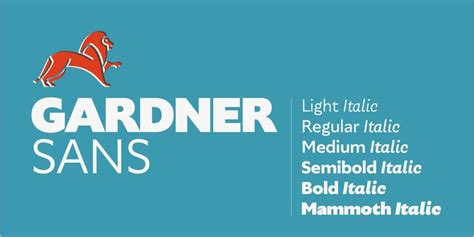
Hey guys! Let’s dive into the awesome world of typography and talk about a font that’s been making waves: Gardner Sans . If you’re on the hunt for a versatile, modern, and absolutely free font family to elevate your designs, you’ve come to the right place. We’re going to explore what makes Gardner Sans so special, how you can snag it for your creative toolkit, and why it’s a game-changer for designers, bloggers, and anyone who loves a good typeface.
What is Gardner Sans Font?
So, what exactly is Gardner Sans ? Think of it as your go-to sans-serif font for that clean, contemporary look. It’s designed with a geometric structure, meaning it’s built on simple shapes like circles and straight lines, which gives it a super balanced and readable feel. This kind of design makes it incredibly versatile. Whether you’re crafting a sleek website, designing a crisp brochure, laying out a professional report, or even just whipping up a social media graphic, Gardner Sans has got your back. Its clean lines and open counters (that’s the fancy term for the enclosed or partially enclosed negative space in a letter, like in an ‘o’ or ‘p’) ensure legibility even at smaller sizes. This is a massive win for user experience, especially online where readability is king. The designers behind Gardner Sans really focused on creating a typeface that feels both modern and timeless, avoiding overly trendy quirks that might date it quickly. It’s the kind of font that speaks professionalism without sounding stuffy, and approachability without being too casual. This delicate balance is what makes it a favorite among many designers looking for a reliable workhorse font.
One of the standout features of the Gardner Sans font family is its extensive range of weights. We’re not just talking about regular and bold here, guys. We’re talking a whole spectrum! You’ll often find weights ranging from an ultra-light, almost ethereal hairline, all the way up to a super-heavy, commanding black. This incredible variety allows for sophisticated typographic hierarchy. Imagine using the ultra-light for subtle subheadings, the regular for body text, and the bold or black for impactful headlines. This allows you to create a dynamic and engaging visual flow in your designs without needing to switch to a completely different font. This consistent character across different weights also means that your brand’s voice remains cohesive, no matter the application. It’s like having a whole symphony orchestra of type at your fingertips, each instrument playing its part perfectly to create a harmonious whole. The geometric underpinnings mean that even the heavier weights retain a certain clarity and don’t become muddy or illegible. It’s a testament to smart design and careful execution. Plus, the open nature of the letterforms contributes to excellent readability, making it a fantastic choice for longer blocks of text as well as short, punchy statements. It’s a font that works hard for you, adapting to almost any design challenge you throw at it. Its neutral yet friendly character makes it suitable for a wide range of industries, from tech and finance to lifestyle and creative agencies. It’s the kind of font that doesn’t scream for attention but quietly commands respect through its excellent craftsmanship and usability.
Why Choose Gardner Sans?
Beyond its affordability, Gardner Sans excels in versatility and readability. As we touched upon, its clean, geometric construction makes it exceptionally legible. This is crucial for everything from website body copy and app interfaces to print materials like business cards and flyers. In today’s digital-first world, where users consume information rapidly on various devices and screen sizes, a font that remains clear and easy to read is paramount. Gardner Sans delivers on this front, ensuring your message gets across loud and clear. Furthermore, the comprehensive range of weights and styles within the family allows for sophisticated typographic treatments. You can establish a clear visual hierarchy, guiding the reader’s eye through your content effectively. Use a lighter weight for secondary information, a regular weight for the main text, and a bolder weight for headings or calls to action. This consistent visual language helps create a more engaging and professional user experience. It’s a font that adapts to your needs, whether you need something subtle and understated or bold and attention-grabbing. The geometric sans-serif style is also inherently modern and timeless, meaning your designs will likely stand the test of time, avoiding the pitfalls of overly trendy typefaces that can quickly look dated. It’s a safe bet for projects where longevity and broad appeal are important. The personality of Gardner Sans is friendly and approachable, yet it maintains an air of professionalism, making it suitable for a wide array of applications. It doesn’t impose a strong personality that might clash with your brand’s identity, but rather complements it with its clean and elegant presence.
Exploring the Weights and Styles
Let’s get real for a minute, guys. The sheer variety within the Gardner Sans font family is one of its most compelling aspects. It’s not just about having one or two styles; it’s about having a whole toolkit that allows for nuanced and professional design work. When we talk about weights, we’re referring to the thickness of the strokes in the characters. Gardner Sans typically offers a very broad spectrum. You might find options like: Thin, Extra Light, Light, Regular, Medium, Semi-Bold, Bold, Extra Bold, and Black. This extensive range means you can create dramatic contrasts in your typography. For instance, a minimalist poster design might use the Thin weight for a large, elegant title, while the Regular weight is used for the essential details. Or, consider a website’s navigation bar; you might use the Medium weight for the main links and the Light weight for secondary navigation items. This careful selection of weights helps guide the user’s eye and communicate information hierarchy effectively. It’s the difference between a design that feels haphazard and one that feels intentionally crafted and polished. The subtle differences between adjacent weights (like Light, Regular, and Medium) are often enough to differentiate content without being jarring, maintaining a smooth reading experience.
Beyond the weights, you’ll also find different styles . While Gardner Sans is primarily a sans-serif, some versions might offer italic or oblique versions for certain weights. Italic styles are slanted versions of the regular font, often used for emphasis or to denote specific types of text like quotes or foreign words. These stylistic variations add another layer of expressive potential to the font family. Imagine using an italic version for pull quotes in an article or for emphasizing a specific point in a presentation. This level of detail in the font family demonstrates a commitment to providing designers with comprehensive tools. It’s this attention to detail that elevates Gardner Sans from a simple free font to a truly professional typographic resource. The geometric nature of the font ensures that even the extreme weights maintain their integrity. The Black weight is substantial and commanding, perfect for headlines that need to make a statement, yet it doesn’t become a dense, unreadable block of ink. Conversely, the Thin weight is delicate and airy, ideal for sophisticated branding elements or as a subtle accent. This careful calibration across all weights ensures that the font’s core characteristics – its clarity, balance, and modern feel – are preserved, regardless of how heavy or light the stroke becomes. This consistency is vital for maintaining brand identity and ensuring a cohesive visual experience across all your marketing materials and digital platforms. It allows for a unified voice, even when employing a wide range of typographic expressions. It’s this thoughtful design and extensive character set that make Gardner Sans such a valuable asset for any designer’s arsenal, empowering them to create sophisticated and impactful visuals with ease.
Applications for Gardner Sans
So, where can you actually use Gardner Sans ? Honestly, the possibilities are pretty much endless, which is what makes it such a fantastic free font. Its clean, geometric aesthetic lends itself perfectly to web design and UI/UX . Think modern websites, sleek mobile apps, and interactive dashboards. The readability of Gardner Sans ensures that users can easily consume information, whether it’s product descriptions, articles, or navigation menus. Its various weights allow designers to create clear visual hierarchies, guiding users through the interface intuitively. For instance, you could use a bold weight for main headings, a regular weight for body text, and a light weight for secondary information or captions. This structured approach enhances user experience and makes your digital products feel more polished and professional. It’s the kind of font that helps make technology feel approachable and user-friendly.
Beyond the digital realm, Gardner Sans is also a stellar choice for branding and identity . Whether you’re a startup looking to establish a clean, modern logo, or an established company refreshing its brand guidelines, Gardner Sans can provide a solid typographic foundation. Its versatility means it can work across various brand personalities – from minimalist and sophisticated to friendly and accessible. Imagine using it for your company’s stationery, business cards, brochures, and marketing collateral. The consistent look and feel across different touchpoints will reinforce your brand’s identity and make it more memorable. It’s a font that doesn’t overpower your brand but rather supports and enhances it, projecting an image of professionalism and reliability. Its ability to be scaled from tiny favicons to large billboards without losing its character is a significant advantage in branding.
Furthermore, Gardner Sans shines in print design . Need to create eye-catching posters, flyers, magazines, or reports? Gardner Sans has you covered. Its excellent legibility makes it suitable for long-form text in publications, while its bolder weights can be used for impactful headlines and titles. The range of weights allows for creative typographic layouts that capture attention and convey information effectively. For academic or corporate reports, its clean and professional appearance lends an air of authority and clarity. For more creative projects, like zines or independent publications, its modern feel can add a contemporary edge. It’s a font that bridges the gap between functional readability and aesthetic appeal, making it a valuable asset for a wide range of print applications. Whether it’s for editorial design, advertising, or informational materials, Gardner Sans offers a dependable and stylish typographic solution. It’s the Swiss Army knife of fonts, ready to tackle almost any design challenge you present it with, and the fact that it’s free just makes it that much sweeter. So go ahead, download it, play with it, and see how it can elevate your next project, guys!